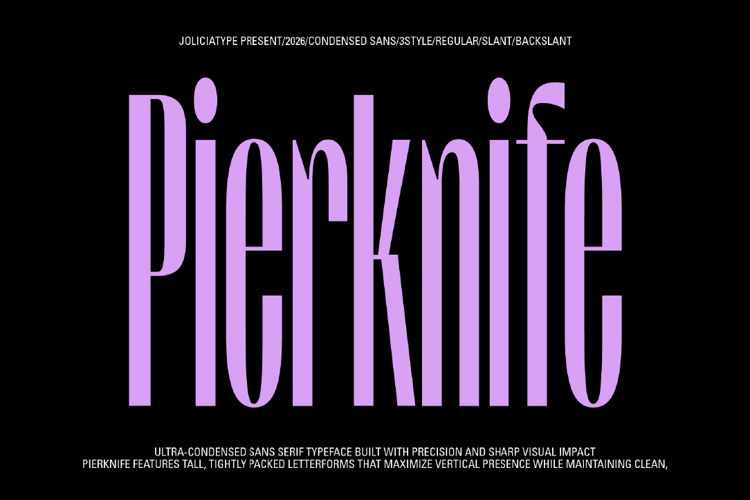
Pierknife Font
Pierknife is a thin ultra condensed sans serif typeface built with
precision and character. Featuring refined ink traps and three
dynamic styles—Upright, Slant, and Back Slant—it moves
effortlessly between modern minimalism and vintage expression.
Its tall, narrow structure creates striking headlines, bold branding,
and sharp editorial layouts. Designed for versatility, Pierknife
delivers clarity, attitude, and a distinctive typographic voice across
print and digital design projects worldwide.